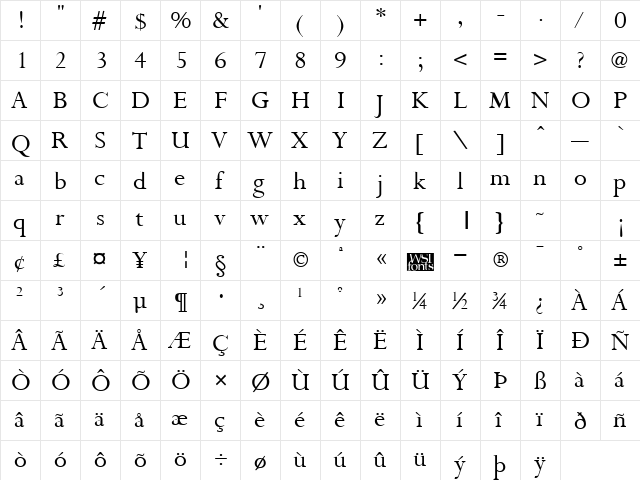
Purloin Regular
Design Context for Purloin Typeface
Purloin takes a measured approach to typography — its balanced proportions and neutral character make it a reliable workhorse for both digital and print work.